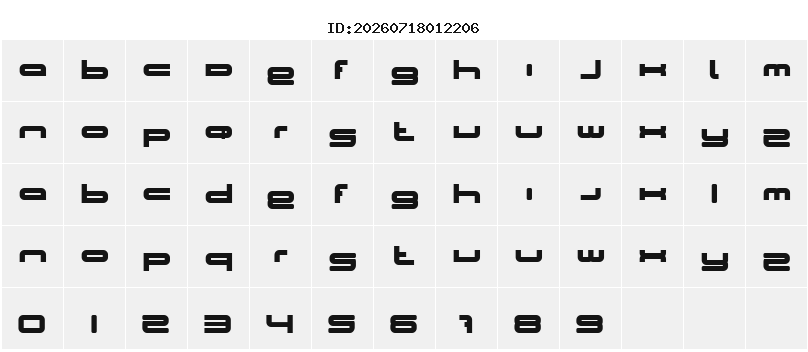
• Font Name: BN Cosmic Girl
• Full Font Name: BN Cosmic Girl
About BN Cosmic Girl.ttf
BN Cosmic Girl.ttf is a modern, elegant sans-serif font designed for ultimate readability and visual harmony. Perfect for branding, headlines, web design, and print materials.